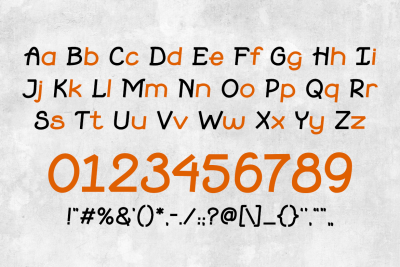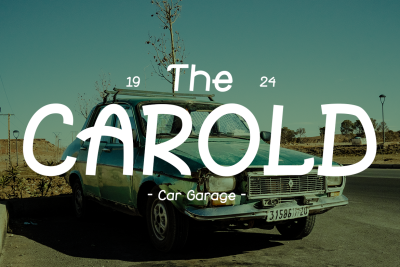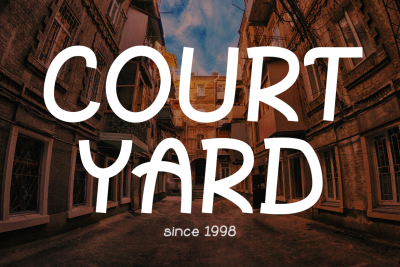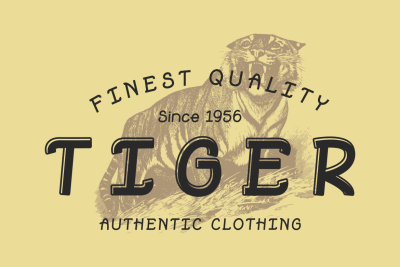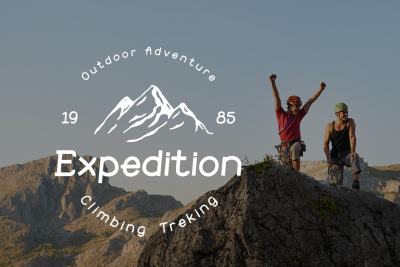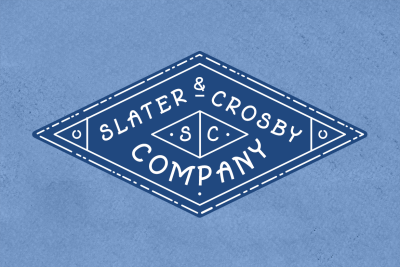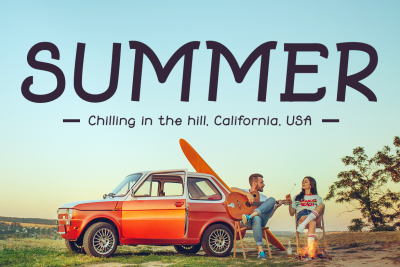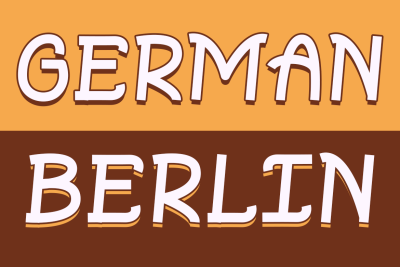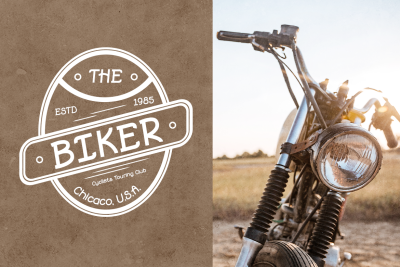
Instagram Font Imaniar is a sleek, modern typeface designed to add elegance and charm to any creative project. With its contemporary, slightly italicized letterforms, Imaniar brings a dynamic and stylish aesthetic to the table. The smooth curves and balanced proportions make it a versatile choice for digital and print applications. Whether used for branding, social media content, or minimalist designs, Imaniar stands out with its unique yet approachable personality.
Imaniar combines a clean and futuristic appeal with a soft, welcoming touch. Its subtle playfulness makes it perfect for capturing attention without being overwhelming. The font is carefully crafted for high readability while maintaining an artistic flair. Its versatility ensures that it works well in both formal and casual contexts. If youโre looking for a typeface that blends sophistication and modernity, Imaniar is an excellent choice.
Instagram Font Imaniar is perfect for designers, influencers, and brands looking for a modern yet stylish typeface. It is particularly well-suited for:
- Social Media Creators & Influencers โ Imaniarโs contemporary style makes it ideal for Instagram captions, story highlights, Pinterest graphics, and YouTube thumbnails.
- Luxury & Fashion Brands โ Its sleek, elegant curves complement high-end fashion labels, beauty products, and luxury branding.
- Minimalist Designers & Lifestyle Bloggers โ The simplicity and sophistication of Imaniar fit perfectly with minimalist branding, lifestyle blogs, and curated social media aesthetics.
- Tech & Startup Branding โ With its futuristic yet friendly appeal, Imaniar works well for innovative businesses, app interfaces, and digital marketing.
- Event & Wedding Planners โ The refined and stylish look of Imaniar makes it a great choice for wedding invitations, event branding, and elegant stationery.
- Modern Editorial & Print Design โ Whether for magazines, book covers, or editorial layouts, Imaniar provides a sleek and sophisticated typographic presence.
Instagram Font Imaniar is more than just a typefaceโitโs a reflection of modern creativity and refined elegance. Whether crafting striking branding, engaging social media visuals, or contemporary marketing materials, Imaniar ensures your work captures attention with a sophisticated and stylish touch.